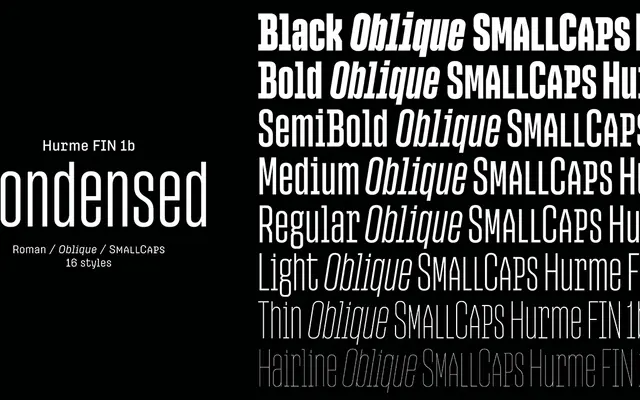
Hurme FIN 1b Condensed
A condensed monolinear sans with angular, monospace-inflected characters and eight weights across upright and oblique styles.
The 1b variant of Hurme FIN sits between the grotesque 1a and the Hurme FIN Mono families, using angular letterforms and slab-serif details on select characters as its distinguishing feature. Sixteen styles cover eight weights from Hairline to Black, each with an optically adjusted oblique. Purchasing FIN 1b includes the corresponding weights of FIN 1a at no extra cost, and the full FIN system spans nine widths totalling 144 styles.
A monolinear sans-serif with horizontal stroke terminals and condensed proportions; the 1b variant introduces angular, monospace-inspired characters with slab-serif details, positioning it between a grotesque and a monospace design.